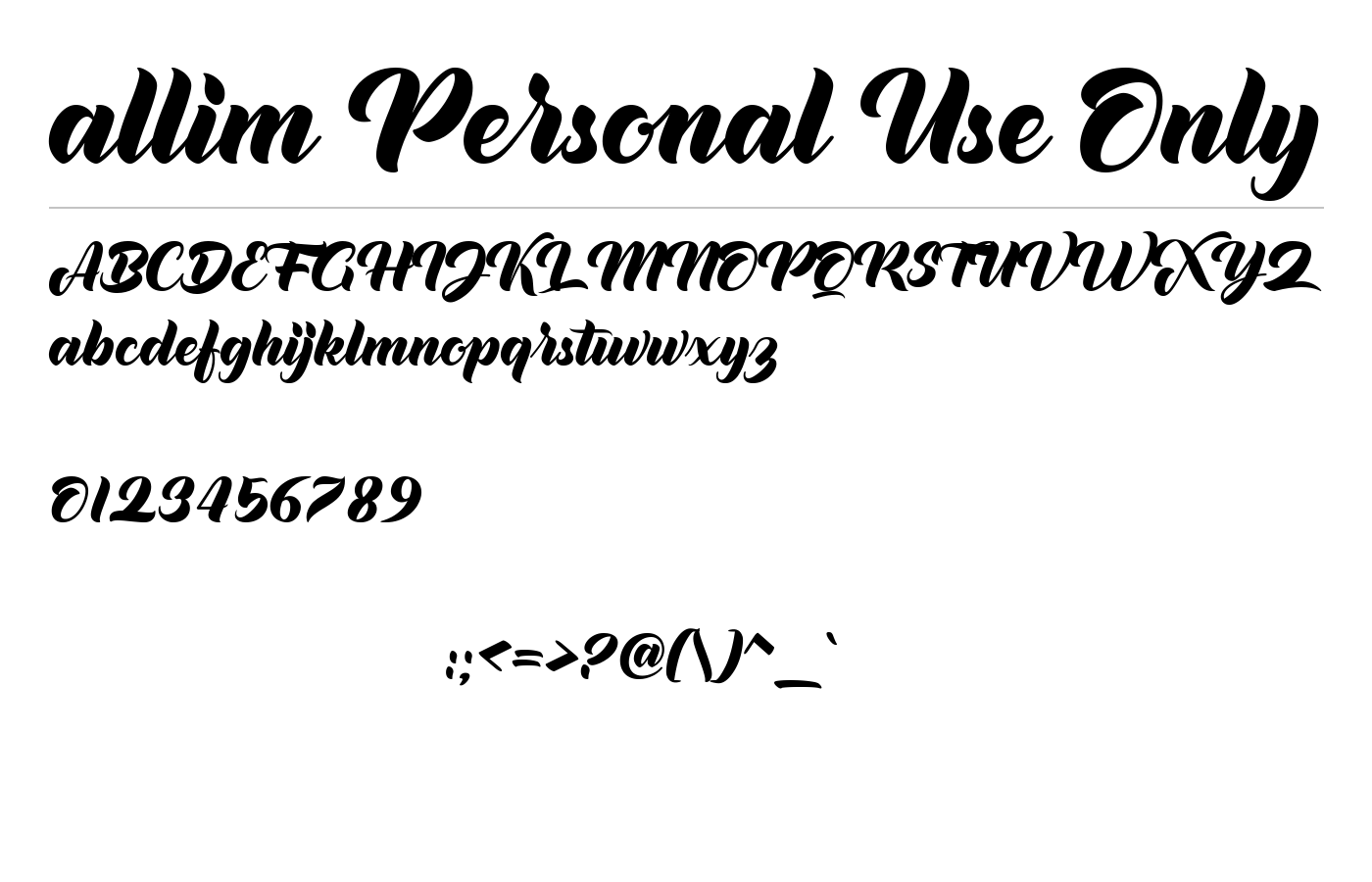
Allim Personal Use Only is a bold and elegant script font with smooth, flowing strokes that evoke a handwritten calligraphic style. Its thick and consistent weight, combined with moderate contrast and cursive letterforms, make it perfect for creating sophisticated, stylish designs such as invitations, logos, and headlines where a personal yet polished touch is desired. This font’s charming curves and strong personality enhance projects that aim for a warm, creative, and refined look.
allim Personal Use Only Font
About allim Personal Use Only Font
| Font family | allim Personal Use Only Font |
| Designer | Ahmad Rofinfi |